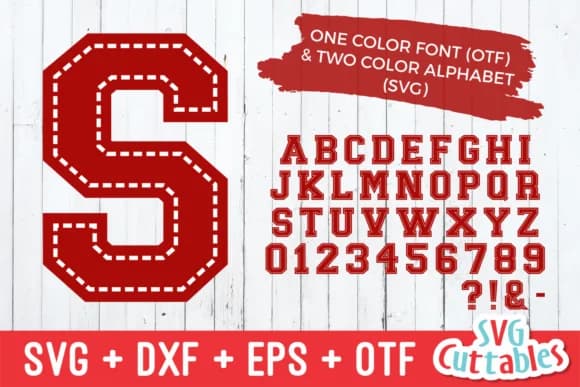
Picture a high school's sports team designing custom varsity apparel or a coach creating a roster poster for the locker room. That's where JP Scribble Font by SVG Cuttables truly shines. This bold slab serif carries genuine athletic energy, with a hand-drawn quality that catches the eye without feeling overly stylized or cartoonish.
The font works brilliantly for collegiate team jersey designs, athletic event signage, boutique sports brand packaging, and custom merchandise labels that demand real impact. Its sturdy, confident letterforms hold up beautifully at large sizes, making it a strong choice for cutting applications and heat-transfer projects on apparel and other materials. You'll find it equally suited to school spirit window decals, team roster boards, or creating energetic branded graphics that feel personal and spirited rather than corporate and generic.
What makes JP Scribble exceptional is how the letters maintain clarity even in tight layouts while still reading as bold and commanding in large format. The slab serif structure gives it that stable, trustworthy feeling that athletic and collegiate brands consistently rely on to communicate confidence. Pick it up on Creative Fabrica when you're ready to bring real energy to your next sports or team-themed project.
JP Scribble Font is a slab serif font that shines as a display or heading face. Pair it with a clean sans-serif or serif font for body text β the contrast creates a clear hierarchy while the two styles stay balanced and easy to read.